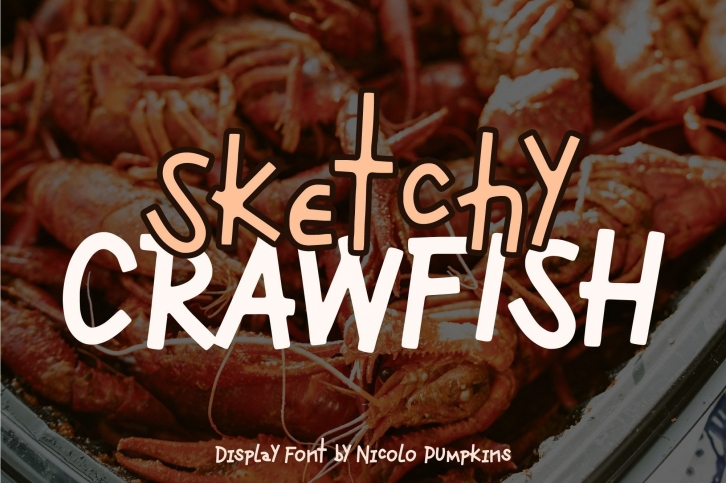
Sketchy Crawfish is a modern, playful, and friendly display font perfect for creating quotes, logos, or any lettering product! This font is PUA encoded, which means you can easily access all of the glyphs and swashes. Sketchy Crawfish will make any creative idea stand out!